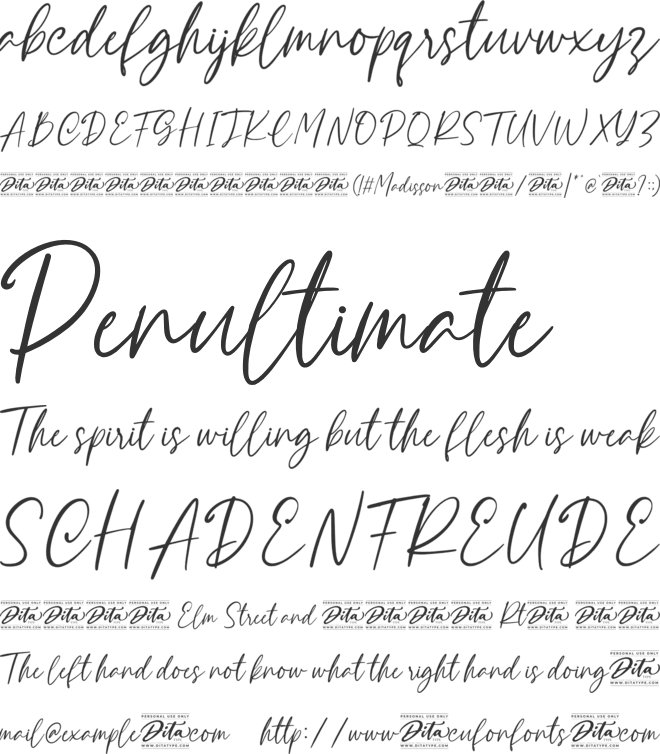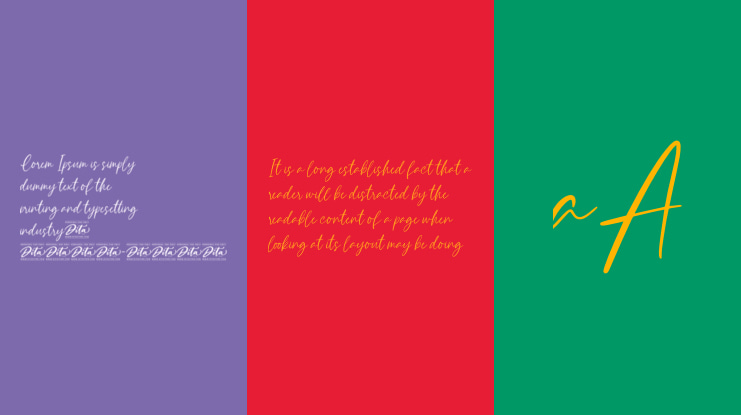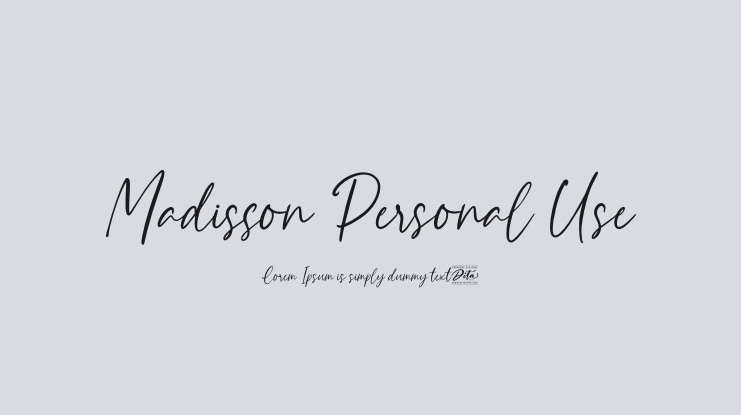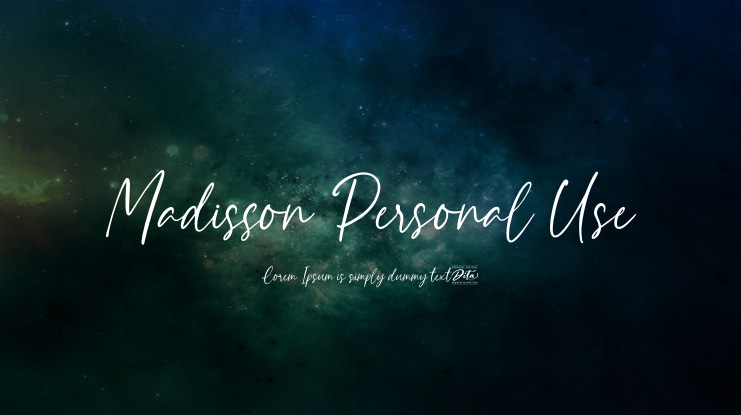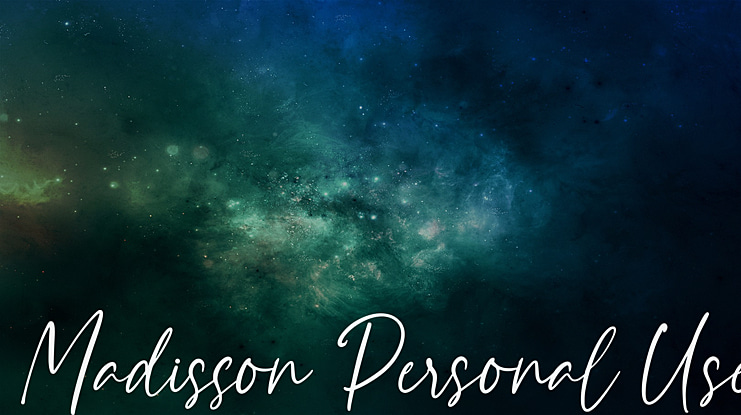
Madisson is a modern signature font. With a classy and natural style, it brings a classy and chic typeface. Madisson best used for weddings, branding, logotype, invitation, and quotes